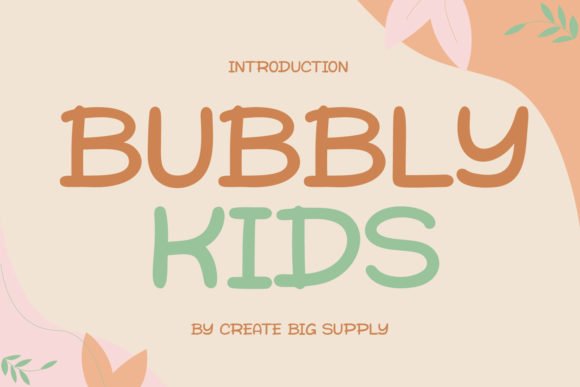
Introduction to Bubbly Kids Font
Bubbly Kids is a cute and fun display font.
This will add a cheerful, happy touch to your designs Use it for projects related to school children, games, storybooks, and more.